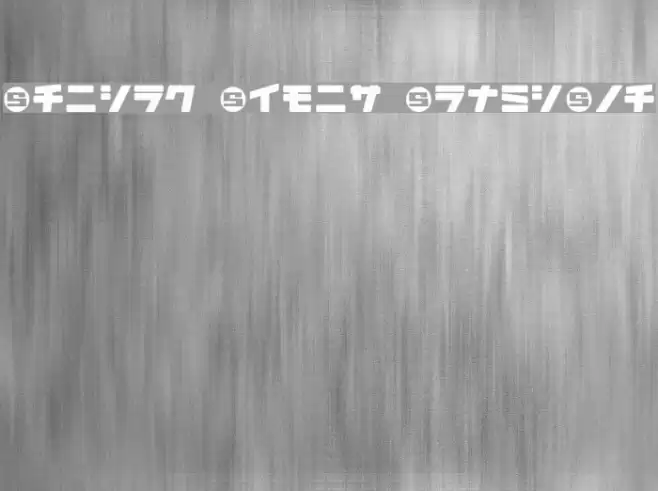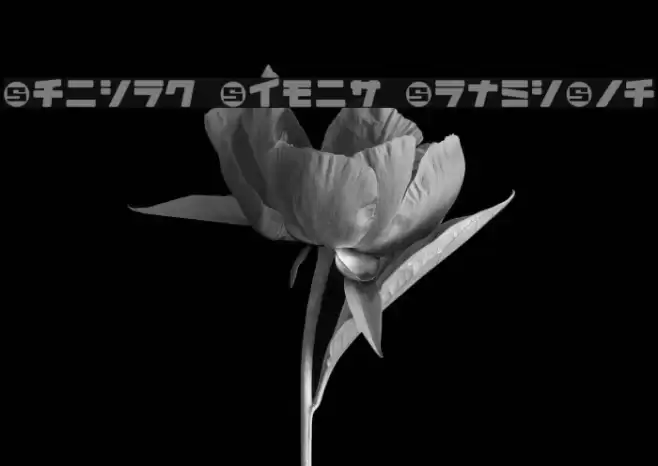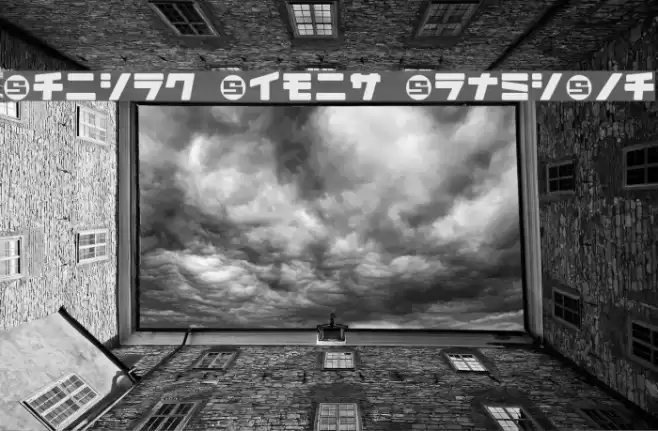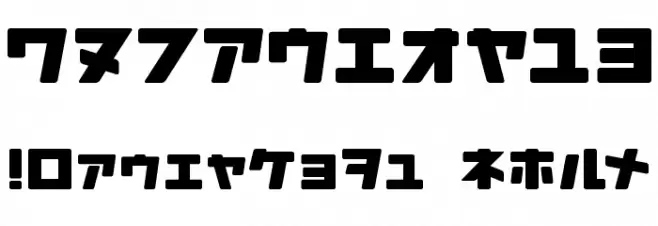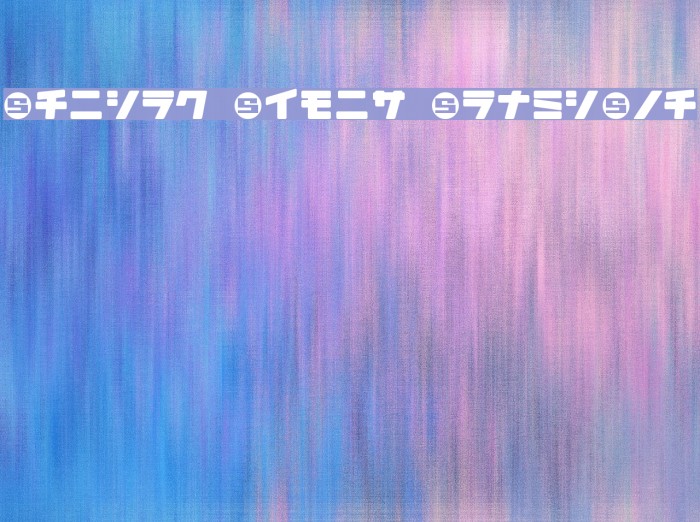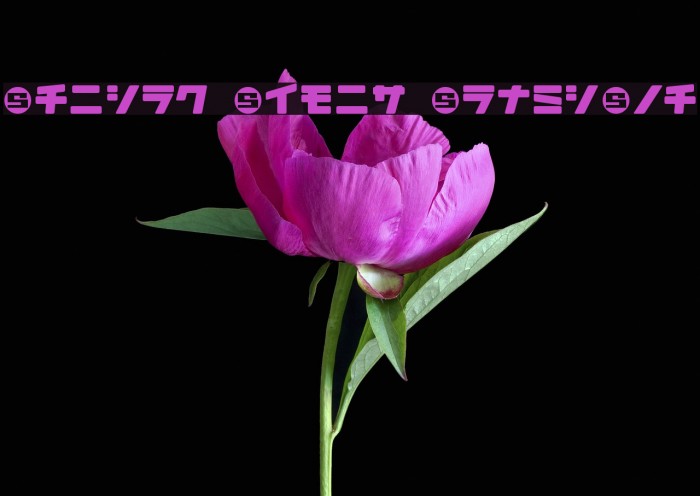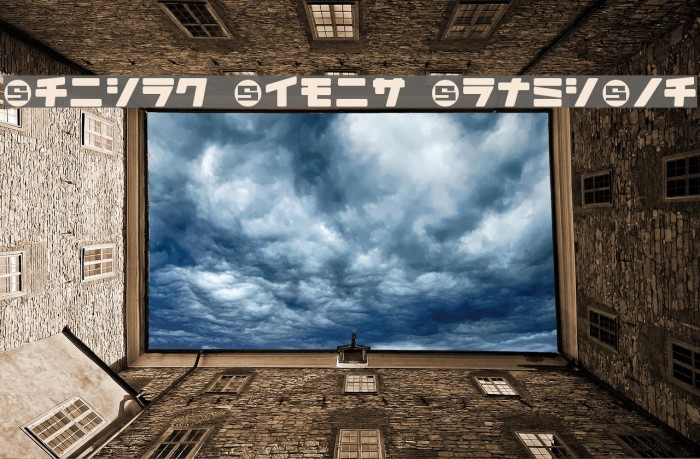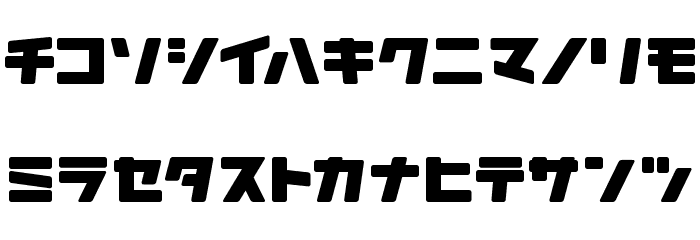
Daidoh Remix RoundJka Font
Daidoh Remix RoundJka Description
This font features bold, geometric shapes with a distinctly modern and futuristic aesthetic. The characters are constructed with thick strokes and rounded edges, giving them a strong presence on the page. The design is highly stylized, with a focus on symmetry and balance, making it ideal for creating eye-catching headlines or logos. The uniformity in the character design ensures a cohesive look, while the boldness of the strokes provides excellent readability from a distance. This font is perfect for projects that require a contemporary and dynamic feel.
A bold, geometric font with a modern and futuristic style from Dingbats fonts.
- Proposed Projects: Ideal for branding, advertising, posters, and digital media that require a strong visual impact.